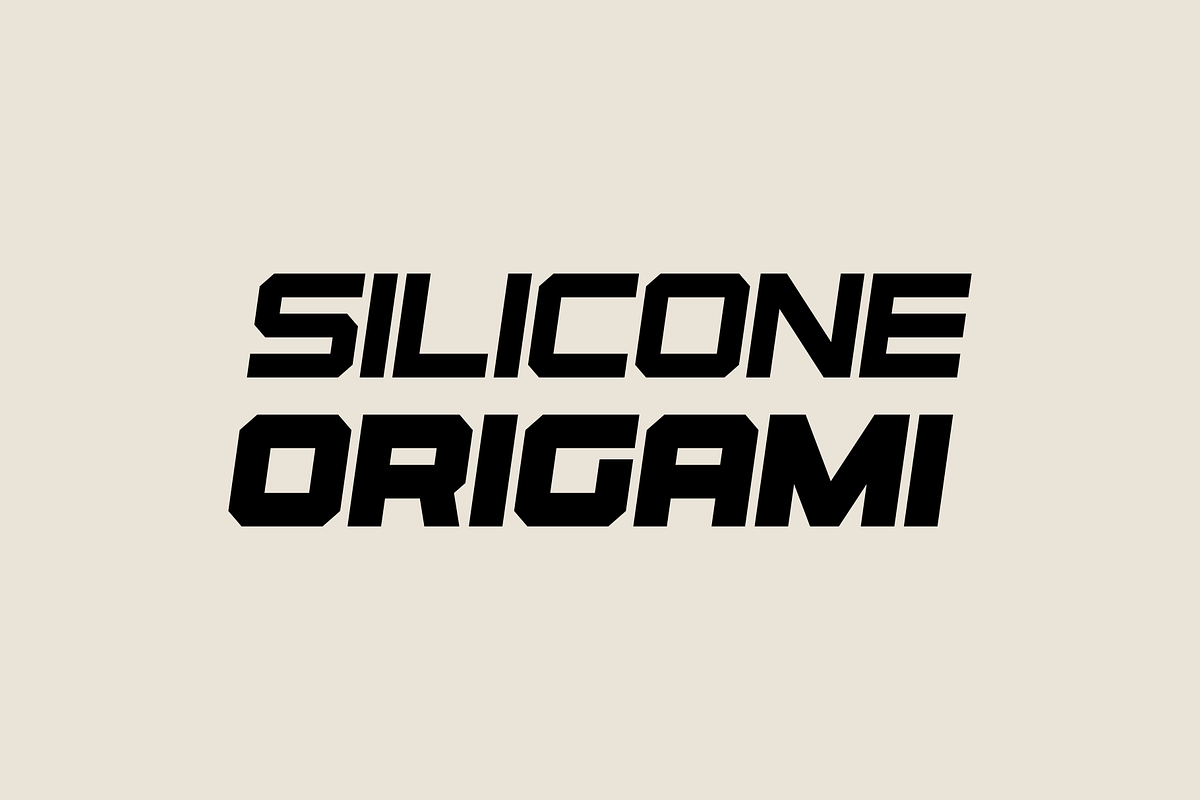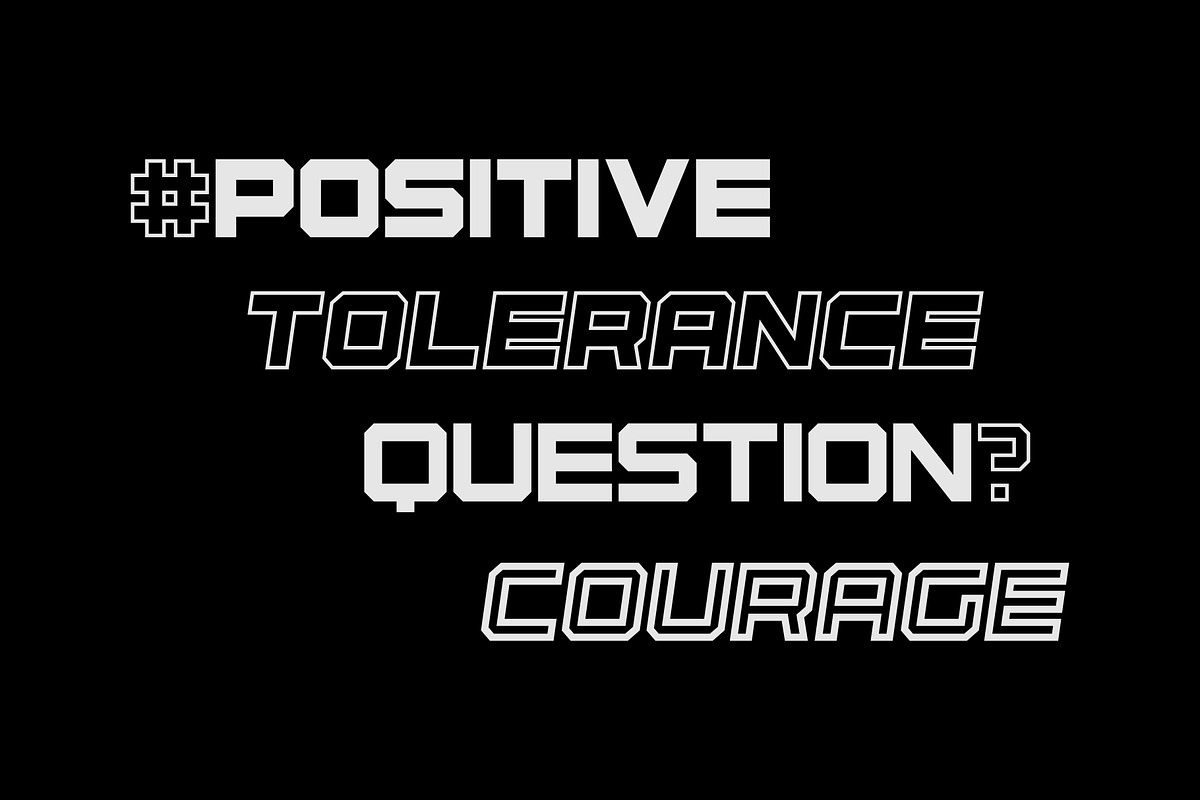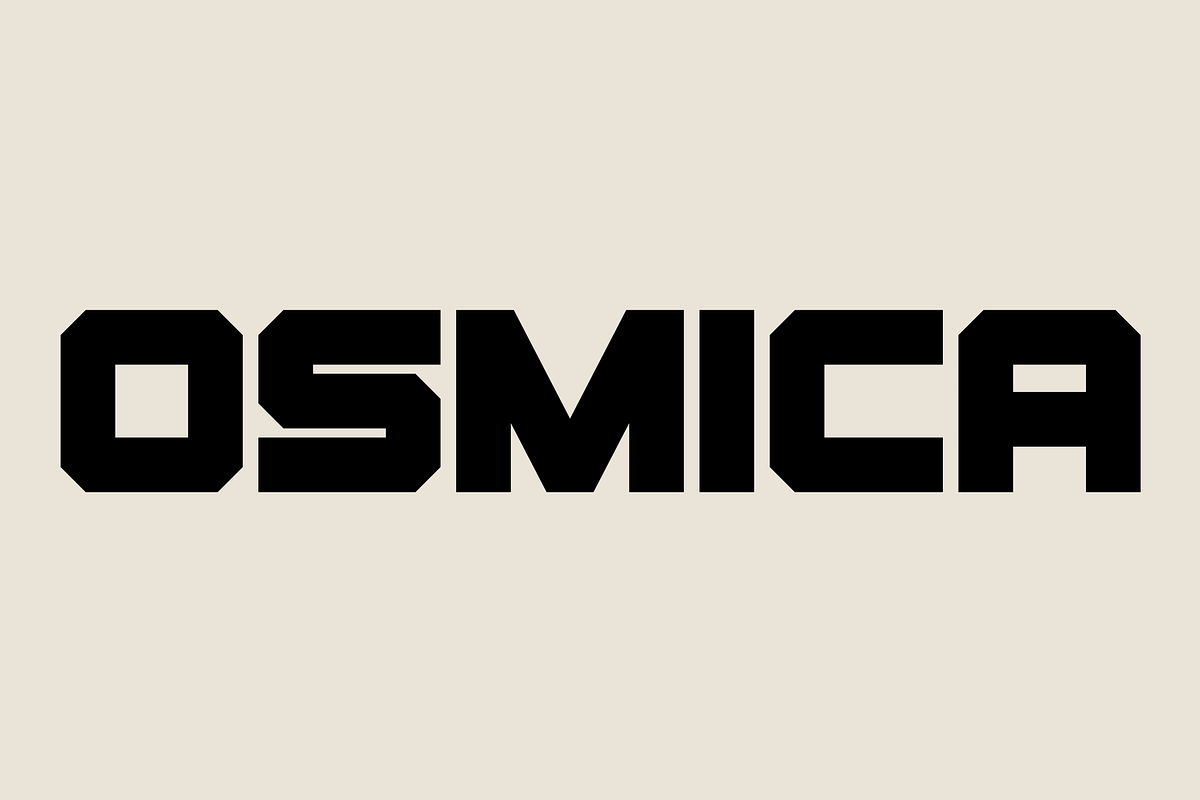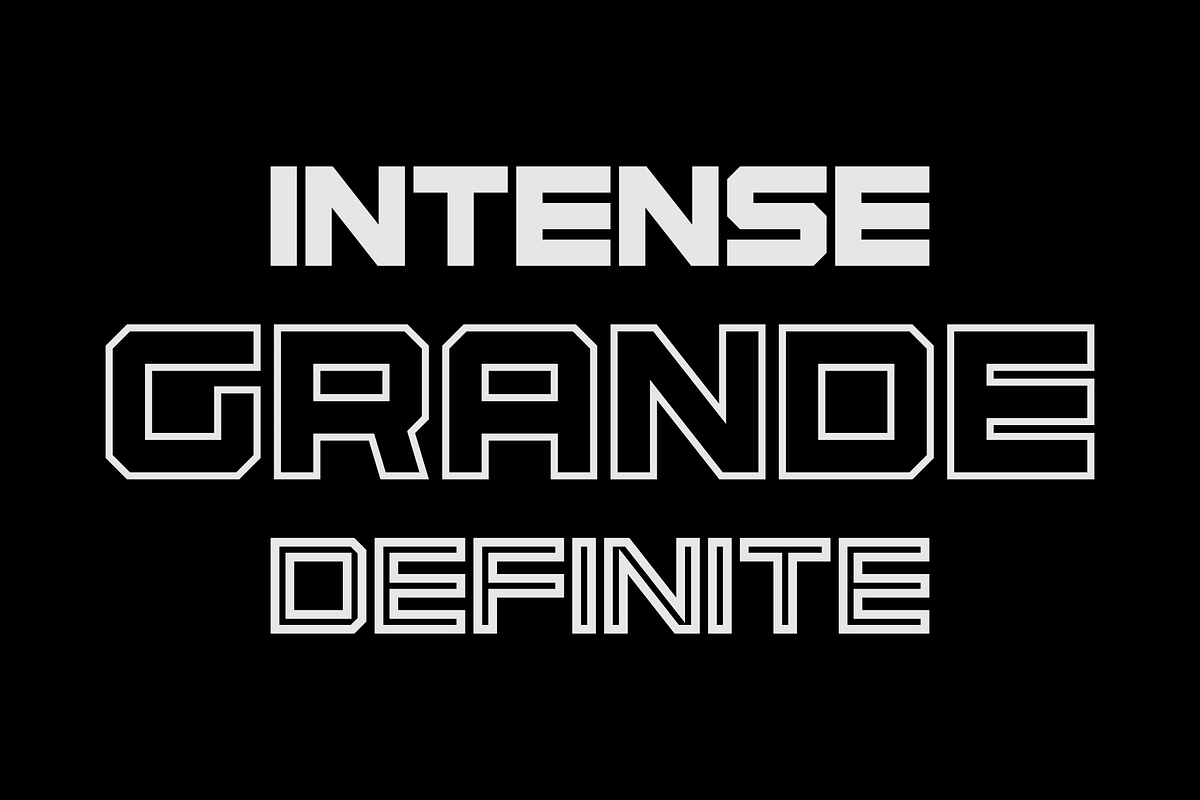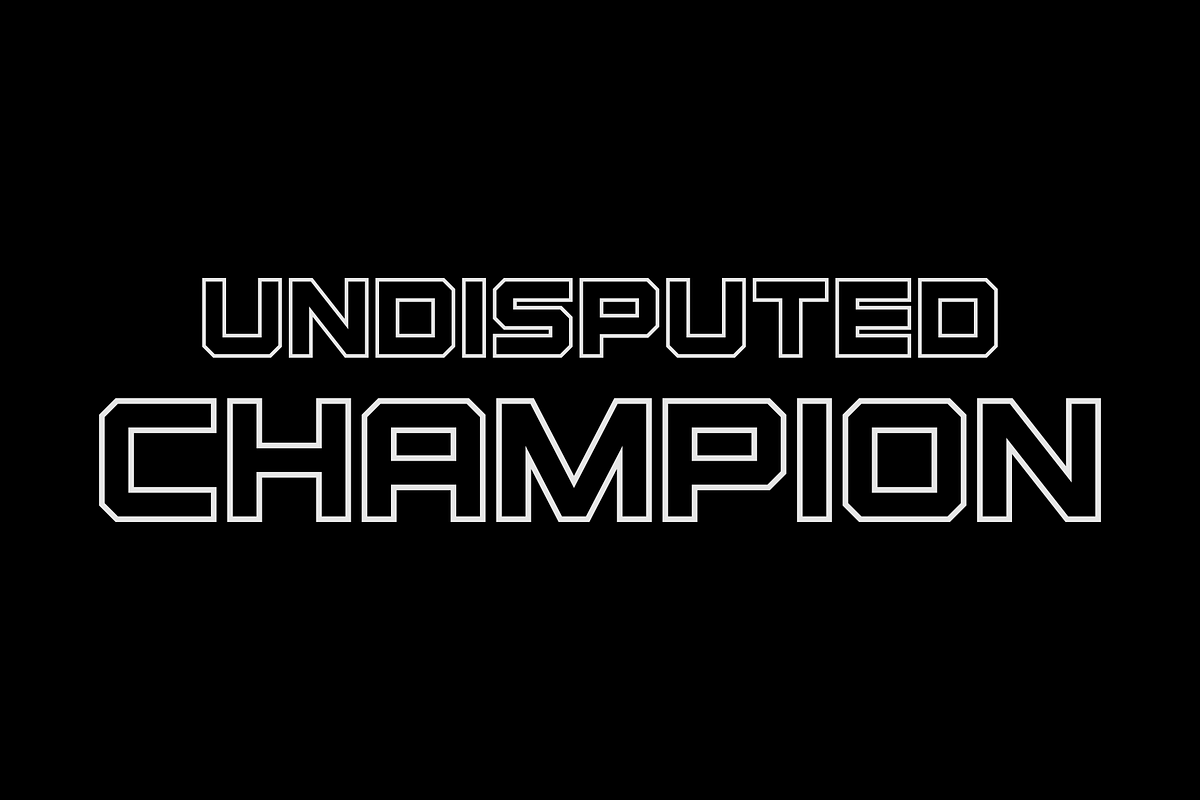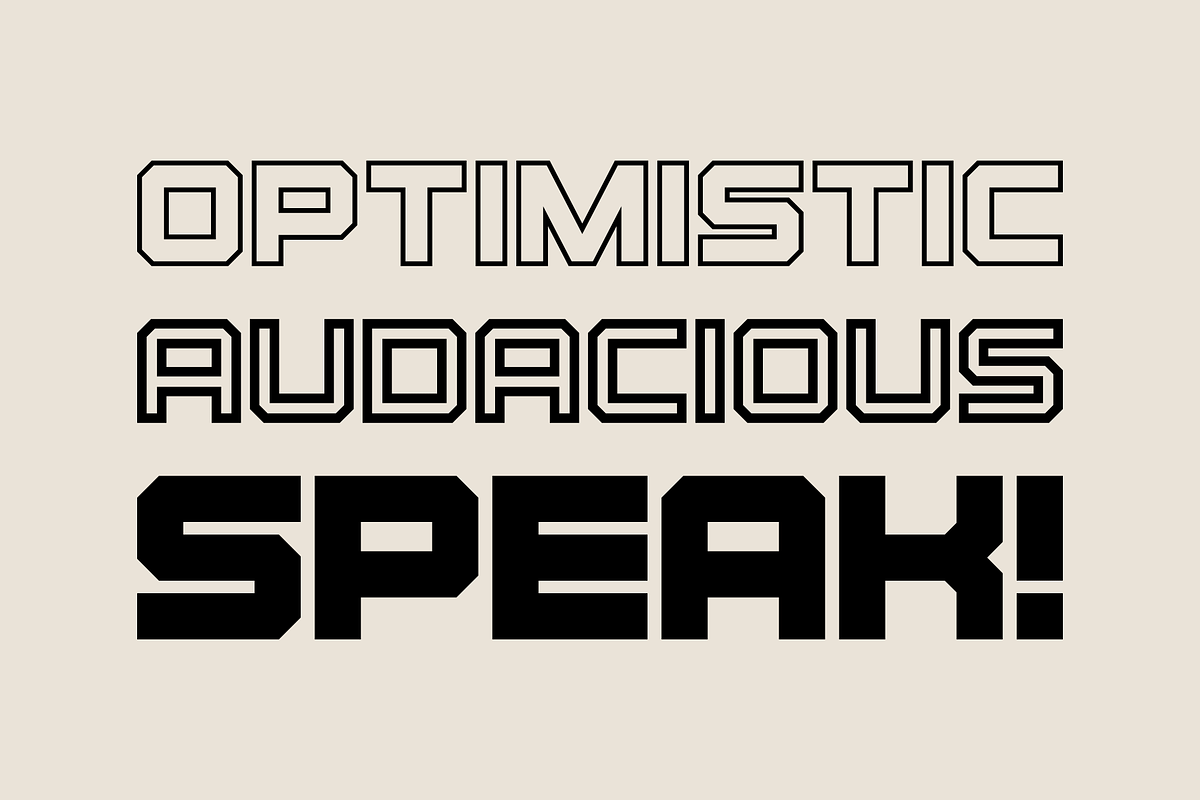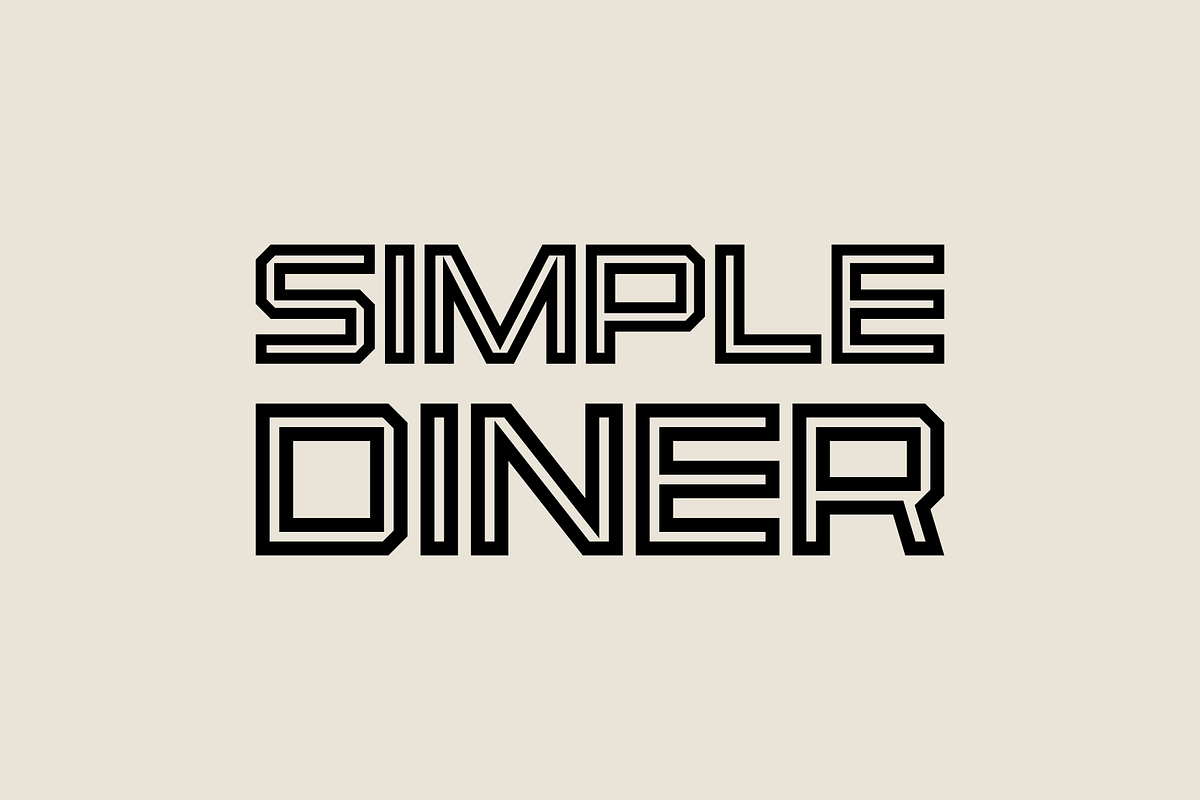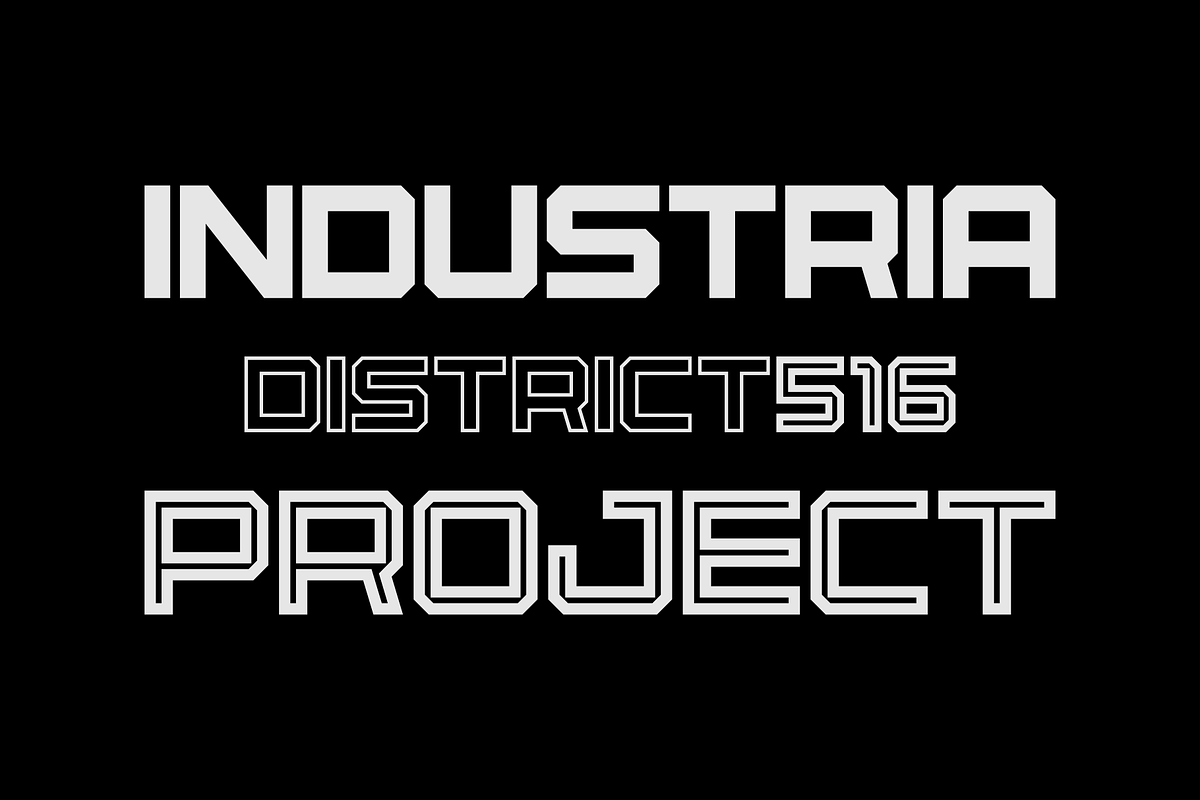
Osmica - Font Family
Osmica is a font family heavier than the sum of its parts.
Why Osmica - Font Family is worth a look
Osmica - Font Family by Stefano Giliberti fits naturally into Branding, posters, packaging, typography.